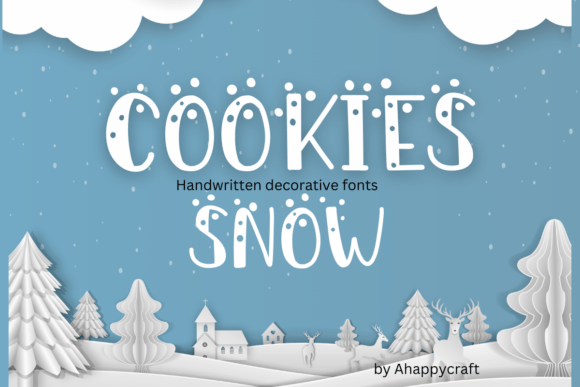
Introducing the Cookies Snow Font, a breathtaking decorative font that will transport you to a winter wonderland. Created by Ahappycraft, this font is the perfect addition to your collection, especially during this magical time of year.
With its unique charm and delicate details, the Cookies Snow Font adds a touch of elegance and sophistication to any project. Whether you're designing holiday cards, creating winter-themed invitations, or adding a festive flair to your website, this font will take your creations to the next level.
Imagine the joy and excitement your audience will feel when they see the whimsical swirls and snowflake-inspired shapes of the Cookies Snow Font. It evokes a sense of warmth and coziness, instantly capturing the spirit of the winter season.
Not only does this font captivate visually, but it also speaks to the emotions. The Cookies Snow Font brings back memories of childhood snowball fights, cozying up by the fireplace, and sipping hot cocoa with loved ones. It taps into that nostalgic feeling and creates a connection with your audience that goes beyond words.
As you explore the possibilities with the Cookies Snow Font, you'll discover its versatility. From elegant wedding invitations to playful holiday banners, this font adapts effortlessly to any theme or style. It's like having a winter wonderland at your fingertips, ready to be transformed into a captivating design.